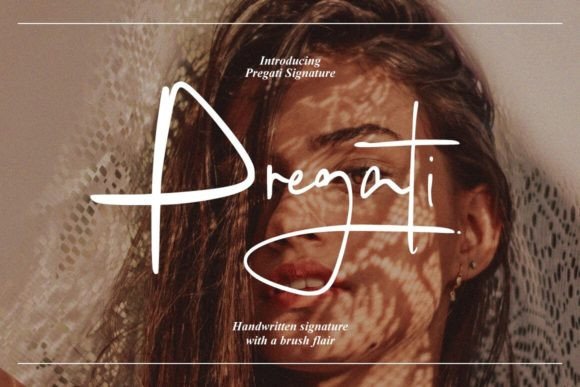
Unleash the captivating aura of your digital presence with Pregati Font, the exquisite script font family designed to leave a lasting impression. This enchanting font, meticulously crafted by Tebaltipis.std, exudes an air of sophistication and elegance that will elevate your designs to new heights.
Step into the world of Pregati Signature, where handwritten charm meets digital precision. With its distinctive signature style, decorative characters, and a dancing baseline, this font brings a touch of playfulness and artistry to your creative projects. Whether you're designing invitations, greeting cards, branding materials, business cards, quotes, or posters, Pregati Signature adds a touch of magic that captivates and inspires.
This versatile font offers an impressive array of 250+ glyphs, providing you with endless possibilities for customization and creativity. The alternative characters are meticulously organized into OpenType features, including Swash, Stylistic Sets, Stylistic Alternates, and Ligature. This allows for seamless integration with OpenType-savvy programs like Adobe Illustrator, Adobe InDesign, Adobe Photoshop, Corel Draw X version, and Microsoft Word.
But Pregati Signature's allure doesn't end there. It comes equipped with PUA unicode (specially coded fonts), making it accessible to all alternate characters with ease. Unleash your inner artist and explore the boundless creative possibilities that await you.
Immerse yourself in the world of Pregati Signature and elevate your designs with its timeless charm. Let your words dance across the screen with grace and elegance, leaving a lasting impression on your audience. Don't settle for ordinary fonts; embrace the extraordinary with Pregati Signature and watch your creations come alive.